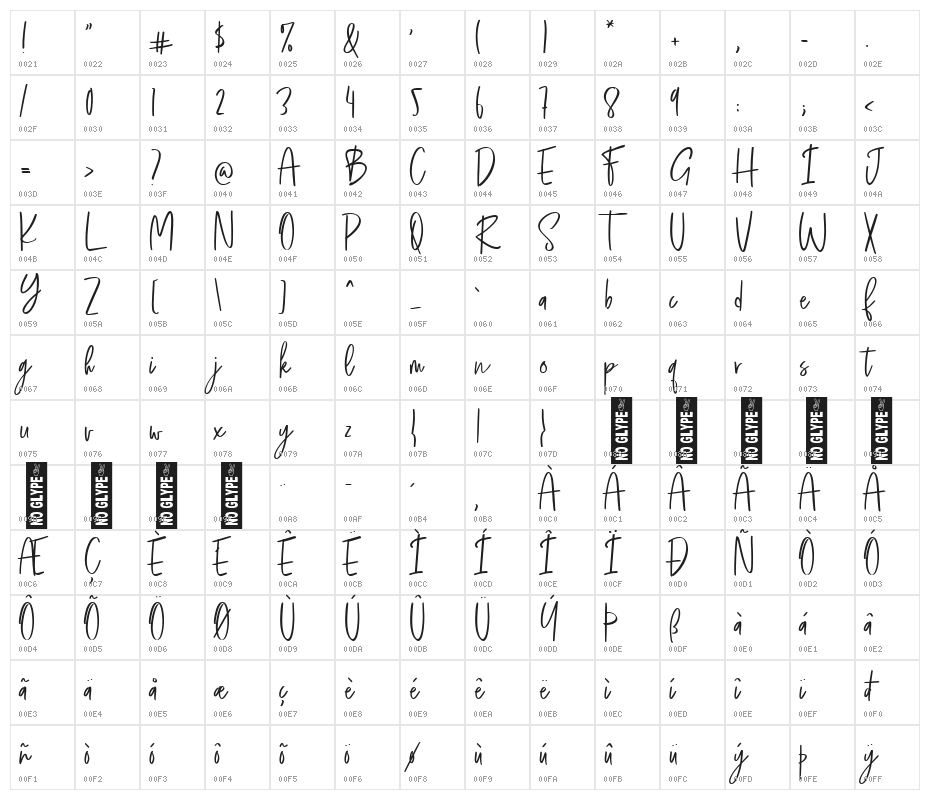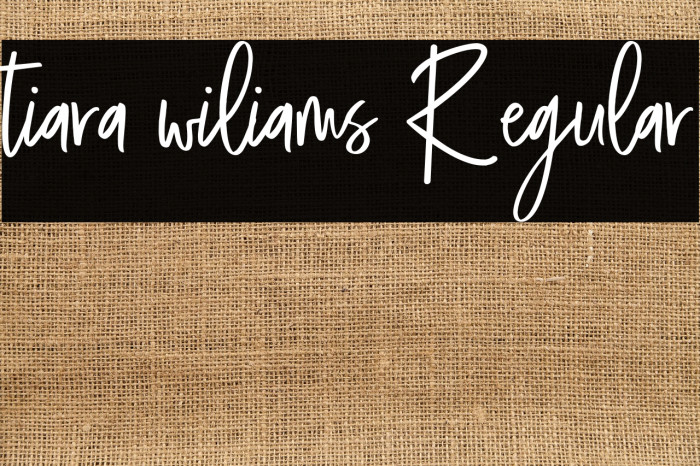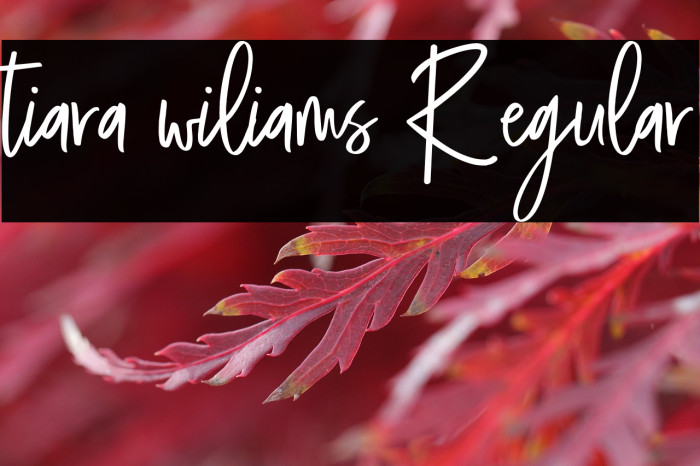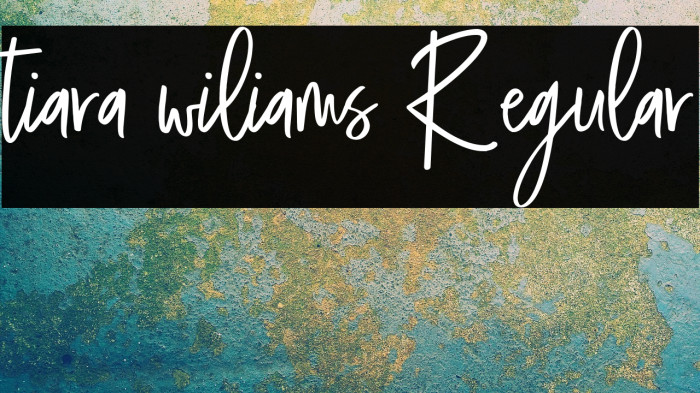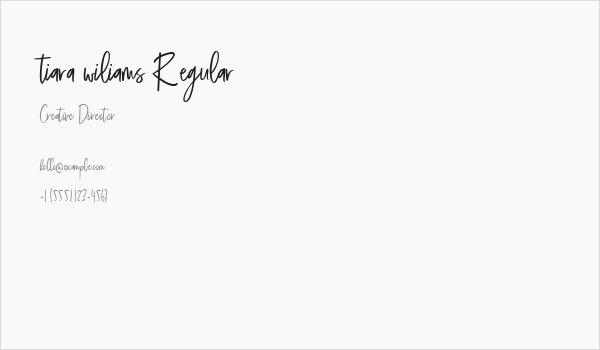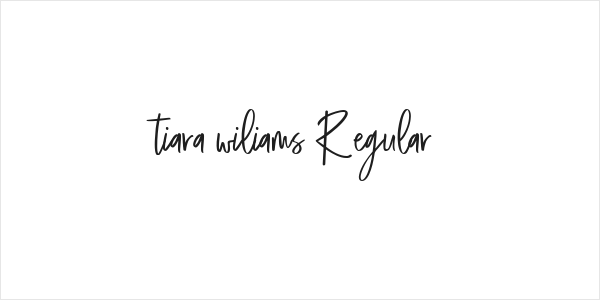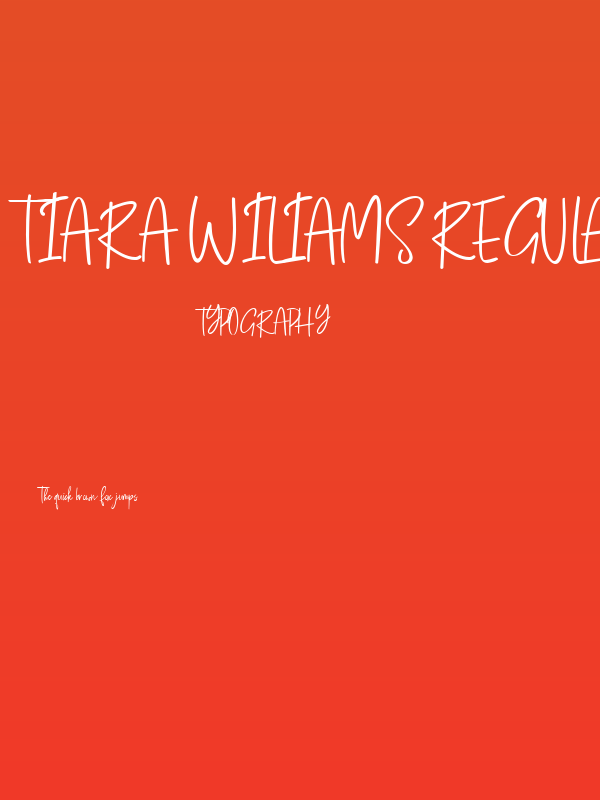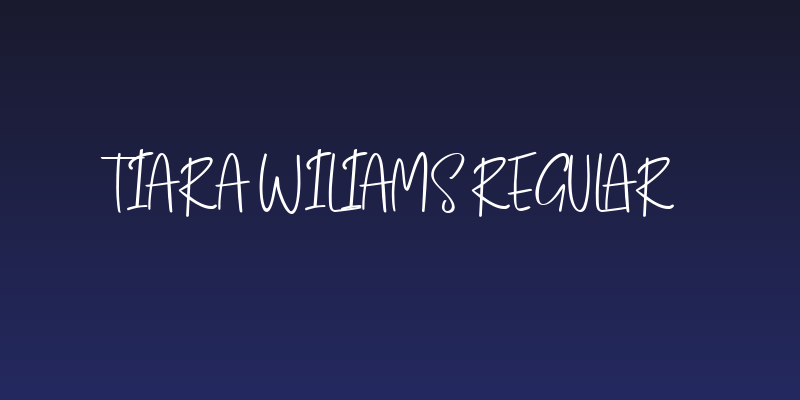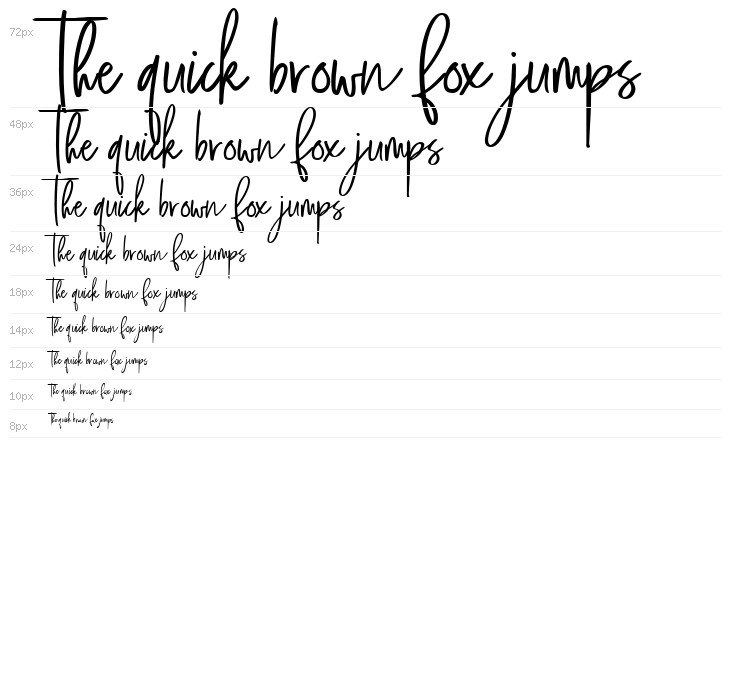
tiara wiliams Regular Font
tiara wiliams Regular Description
This font features a playful and dynamic handwritten style, characterized by its fluid and organic strokes. The uppercase letters are tall and slender, with a slight slant that adds a sense of movement and energy. The lowercase letters are more compact and rounded, maintaining a consistent flow that complements the uppercase. The numerals are distinct and easy to read, with a similar handwritten flair. Special characters are creatively integrated, maintaining the overall aesthetic. This font exudes a casual and approachable vibe, making it suitable for a variety of creative projects.
| Use Case | Logos, Headlines, Social media graphics |
| Proposed Projects | Ideal for greeting cards, invitations, personal branding, and social media graphics. |